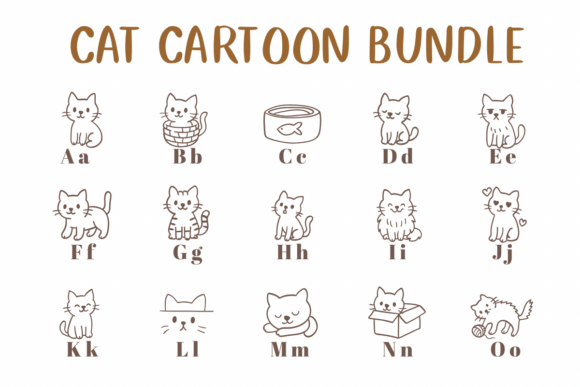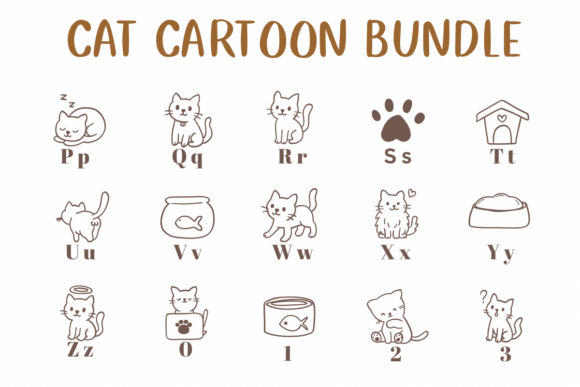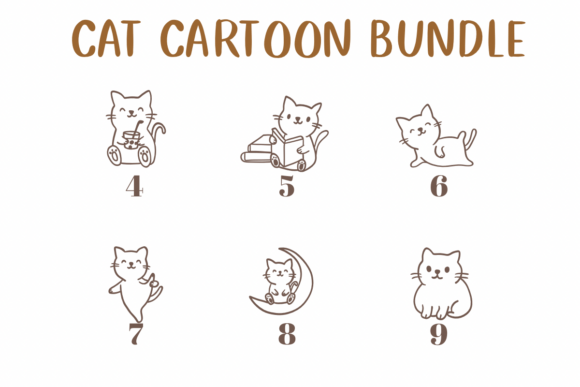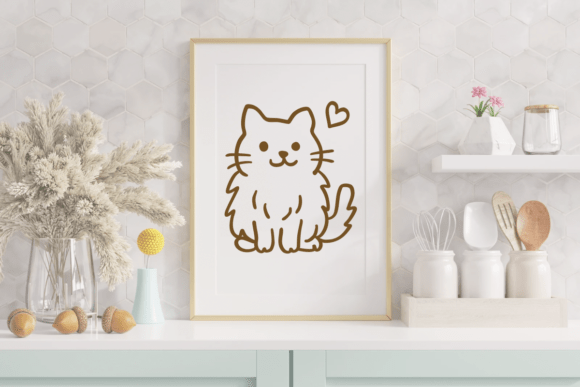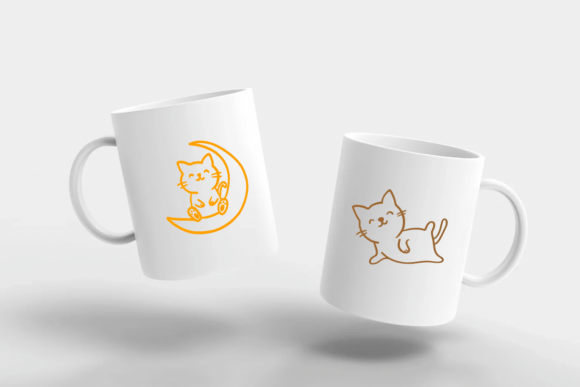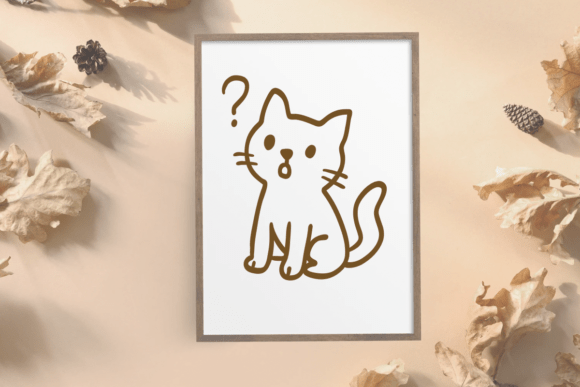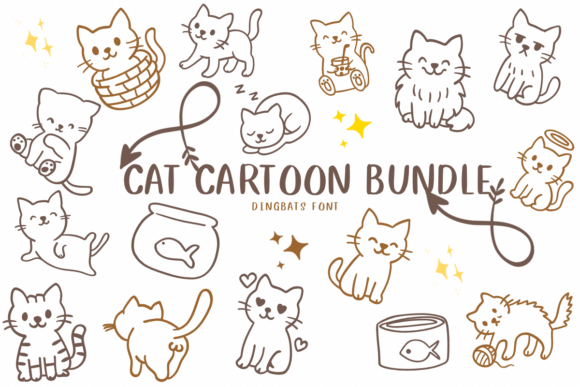
Introducing the Cat Cartoon Bundle Font: A Cute Feline Theme for Your Creative Projects
Are you a designer, crafter, or DIY enthusiast looking for a fun and playful font to add a touch of whimsy to your creative projects? Look no further than the Cat Cartoon Bundle Font! This adorable dingbats font features a cute feline theme that’s purr-fect for a wide range of applications, from wedding invitations and decorations to logos and craft designs.
What is the Cat Cartoon Bundle Font?
The Cat Cartoon Bundle Font is a unique and charming dingbats font that features a variety of cute cat illustrations, including adorable faces, playful poses, and sweet expressions. This font is designed to add a touch of personality and humor to your creative projects, making it ideal for designers and crafters who want to create something truly special.
What Can I Use the Cat Cartoon Bundle Font For?
The possibilities are endless with the Cat Cartoon Bundle Font! Here are just a few ideas to get you started:
- Wedding Invitations: Add a touch of whimsy and romance to your wedding invitations with this adorable font. You can use it to create custom illustrations, borders, and even a special message to your loved one.
- DIY Crafts: This font is perfect for DIY crafters who love to create handmade cards, gift tags, and other paper crafts. You can use it to add a personal touch to your creations and make them truly unique.
- Decorations: Use the Cat Cartoon Bundle Font to create custom decorations for your home or office. You can create wall art, garlands, and other decorative items that feature cute cat illustrations.
- Logos: This font is also great for designers who want to create a fun and playful logo for their business or brand. The cute cat illustrations are sure to bring a smile to your customers’ faces!
- Social Media Graphics: Use the Cat Cartoon Bundle Font to create engaging social media graphics, such as Facebook posts, Instagram stories, and Twitter headers. The cute cat illustrations are sure to grab attention and drive engagement.
Features of the Cat Cartoon Bundle Font
The Cat Cartoon Bundle Font has several features that make it a must-have for designers and crafters:
- Unique Illustrations: This font features a range of unique and adorable cat illustrations that are sure to delight.
- Scalable: The font is scalable, so you can use it for a wide range of projects, from small crafts to large-scale designs.
Tips for Using the Cat Cartoon Bundle Font
Here are a few tips for getting the most out of the Cat Cartoon Bundle Font:
- Experiment with Different Sizes: Try using the font in different sizes to create visual interest and hierarchy in your designs.
- Combine with Other Fonts: Combine the Cat Cartoon Bundle Font with other fonts to create a unique and eye-catching design.
- Use for Patterns: Use the font to create patterns and textures that feature cute cat illustrations.
- Get Creative: Don’t be afraid to get creative and try new things with the Cat Cartoon Bundle Font. The possibilities are endless!
The Cat Cartoon Bundle Font is a fun and playful dingbats font that’s purr-fect for designers, crafters, and DIY enthusiasts. With its cute feline theme and range of unique illustrations, this font is sure to add a touch of whimsy and personality to your creative projects. Whether you’re creating wedding invitations, decorations, logos, or social media graphics, the Cat Cartoon Bundle Font is a great choice. So why wait? Download the Cat Cartoon Bundle Font today and start creating your own adorable cat-themed designs!